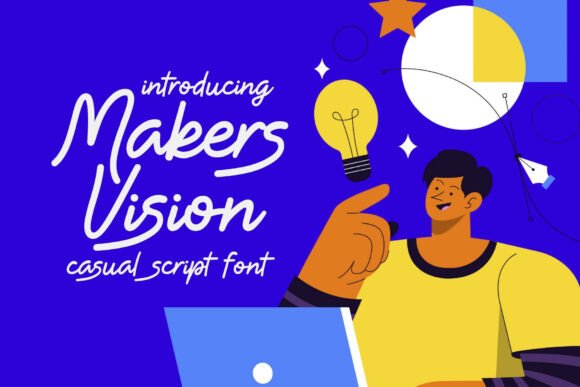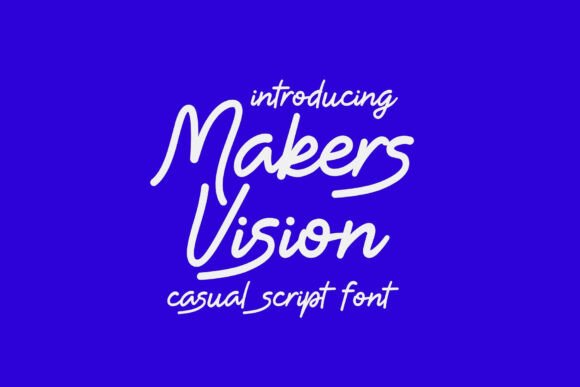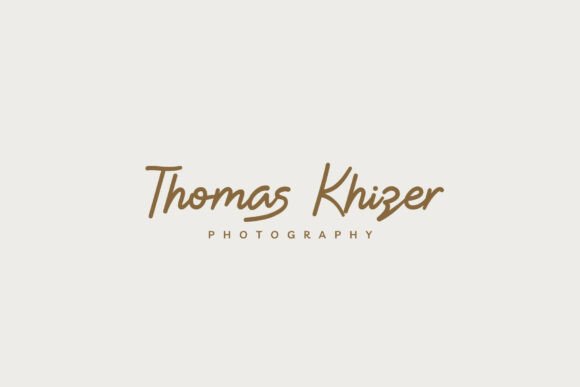
Introduction to Makers Vision Font
Introducing Makers Vision, a casual modern script font designed to feel personal, stylish, and full of handcrafted charm.
Every single letter has been uniquely crafted with expressive strokes, natural flow, and subtle imperfections that give the typeface a truly authentic human touch Blending contemporary elegance with relaxed handwritten energy, Makers Vision feels both polished and approachableβ€”perfect for creatives who want typography that feels genuine, artistic, and full of personality.